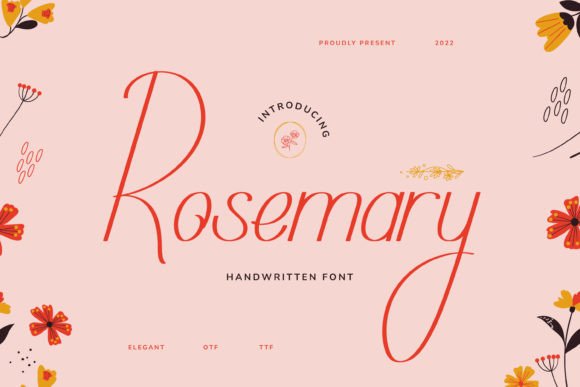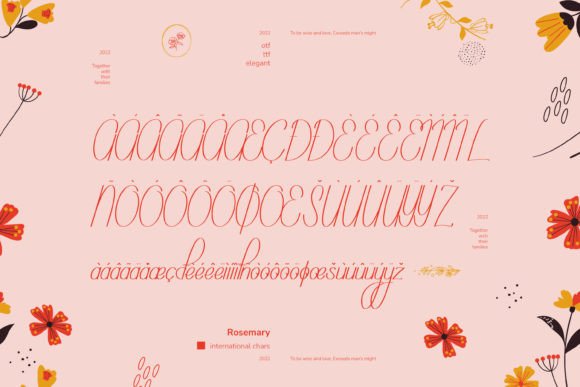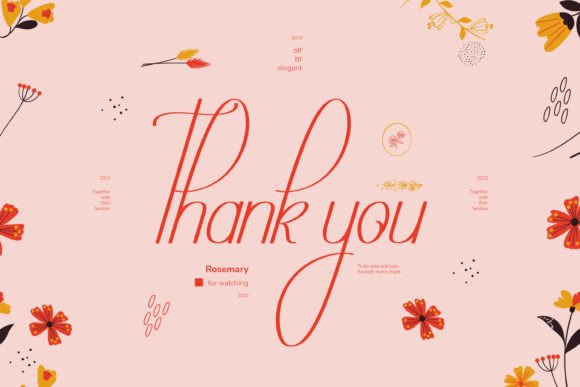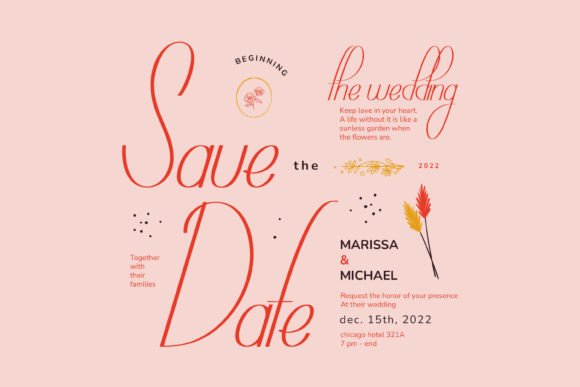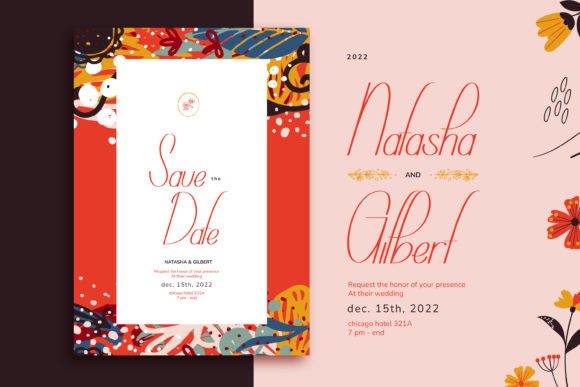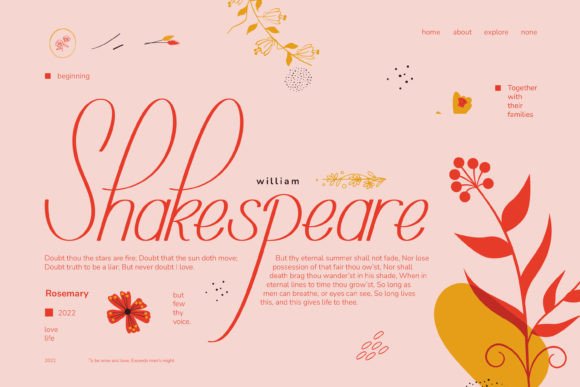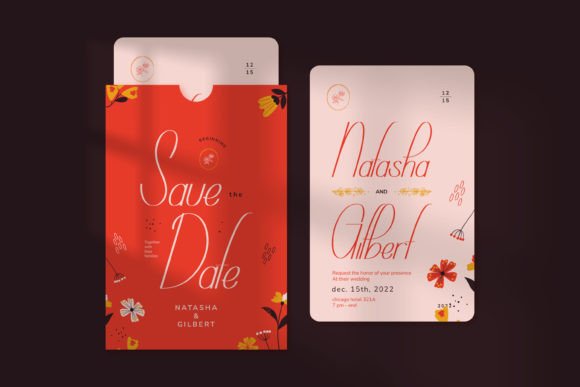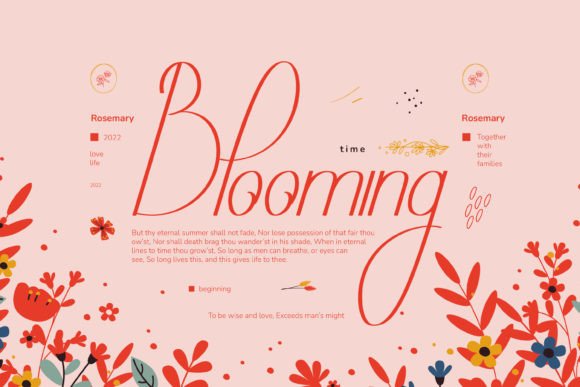
Rosemary Font
About Rosemary Font
Rosemary font is a beautifully charming and elegant handwritten script that adds a sophisticated touch to any design. When you download Rosemary font, you gain access to a typeface that is perfect for creating heartfelt and stylish projects. This font blends classic elegance with a personal, handwritten feel, making it a wonderful choice for designers seeking to add warmth and grace to their work.
Elegant and Charming Script for All Occasions
Rosemaryfont shines in a wide variety of uses. Its graceful curves and balanced letterforms make it ideal for wedding invitations, thank you cards, and greeting cards. Download Rosemary font to enhance these special projects with a delicate, handwritten style that truly stands out.
Versatile Use for Branding and More
Not limited to personal projects, Rosemary font also works beautifully for business cards, logos, quotes, and branding designs. Its charm and elegance translate well across different mediums, giving your work a polished yet approachable look.
PUA Encoded for Creative Freedom
Rosemaryfont is PUA encoded, which means you can easily access all of its alternate characters, ligatures, and swashes. This feature allows you to customize your designs effortlessly and add a unique flair that sets your work apart.
Elevate Your Design Projects